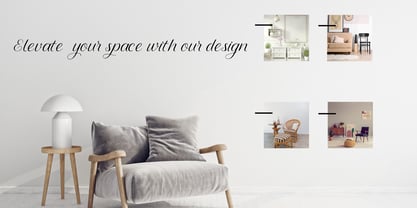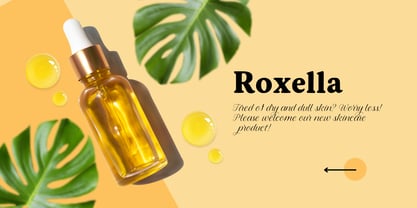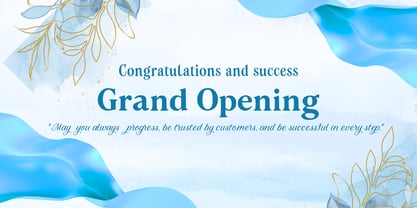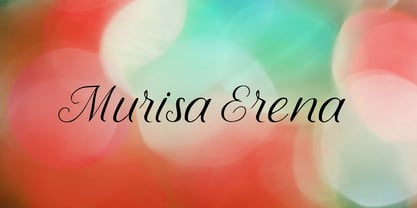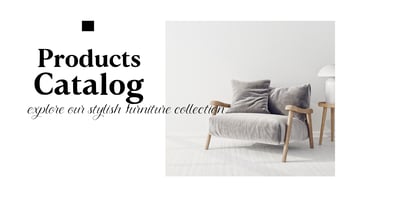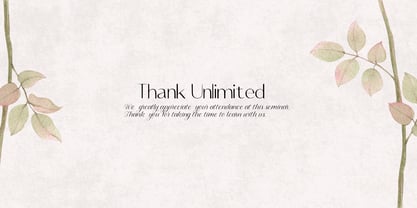
Murisa Erena
by Murisa Studio
The Murisa Erena Font Family was designed by Lili Sadili and published by Murisa Studio. Murisa Erena contains 2 styles and family package options. More about this family
✨ Murisa Erena: The Soul of Timeless Sophistication ✨ Indulge in the art of digital calligraphy with Murisa Erena, a font that doesn't just display text—it whispers stories of heritage, elegance, and unyielding grace. Crafted for those who demand more than mere legibility, this typeface is a masterclass in fluid motion and aesthetic precision. 🖋️ The Aesthetic Essence Murisa Erena is where the grandeur of classical cursive meets the clean demands of modern luxury. Each stroke is designed with a rhythmic flow, featuring delicate hairlines and confident swells that create a visual melody on the page. It captures the spirit of a hand-penned letter from a golden era, refined for the high-end designs of today. 🌍 A Bridge to Eastern Europe True beauty knows no borders. Murisa Erena has been meticulously engineered with extensive character support for Eastern European languages. Whether your project speaks in Polish, Hungarian, Czech, or beyond, this font ensures that every diacritic and unique glyph retains the same exquisite flourish as the rest of the alphabet. 💎 Why Murisa Erena is Your Next Essential Asset: Aristocratic Flourishes: Notice the intricate loops in the uppercase 'G' and 'K'—details that command attention and breathe life into branding. Seamless Legibility: Unlike chaotic scripts, Murisa Erena maintains a balanced slant and clear spacing, making it perfect for high-fashion editorials and luxury invitations. Harmonious Numerals: Even the numbers are treated as art, ensuring that dates and prices on your premium products look as stunning as the copy. Versatility in Luxury: 🥂 High-End Branding & Logos 💌 Bespoke Stationery & Wedding Suites 🍷 Premium Packaging & Labeling 📜 Editorial Titles & Signature Quotes 👑 The Choice of Visionaries When you choose Murisa Erena, you aren't just selecting a font; you are investing in an atmosphere. It is the silent ambassador of quality for your brand, elevating your work from "standard" to "spectacular." "In a world of fleeting trends, Murisa Erena remains an icon of enduring class."
Designers: Lili Sadili
Foundry: Murisa Studio